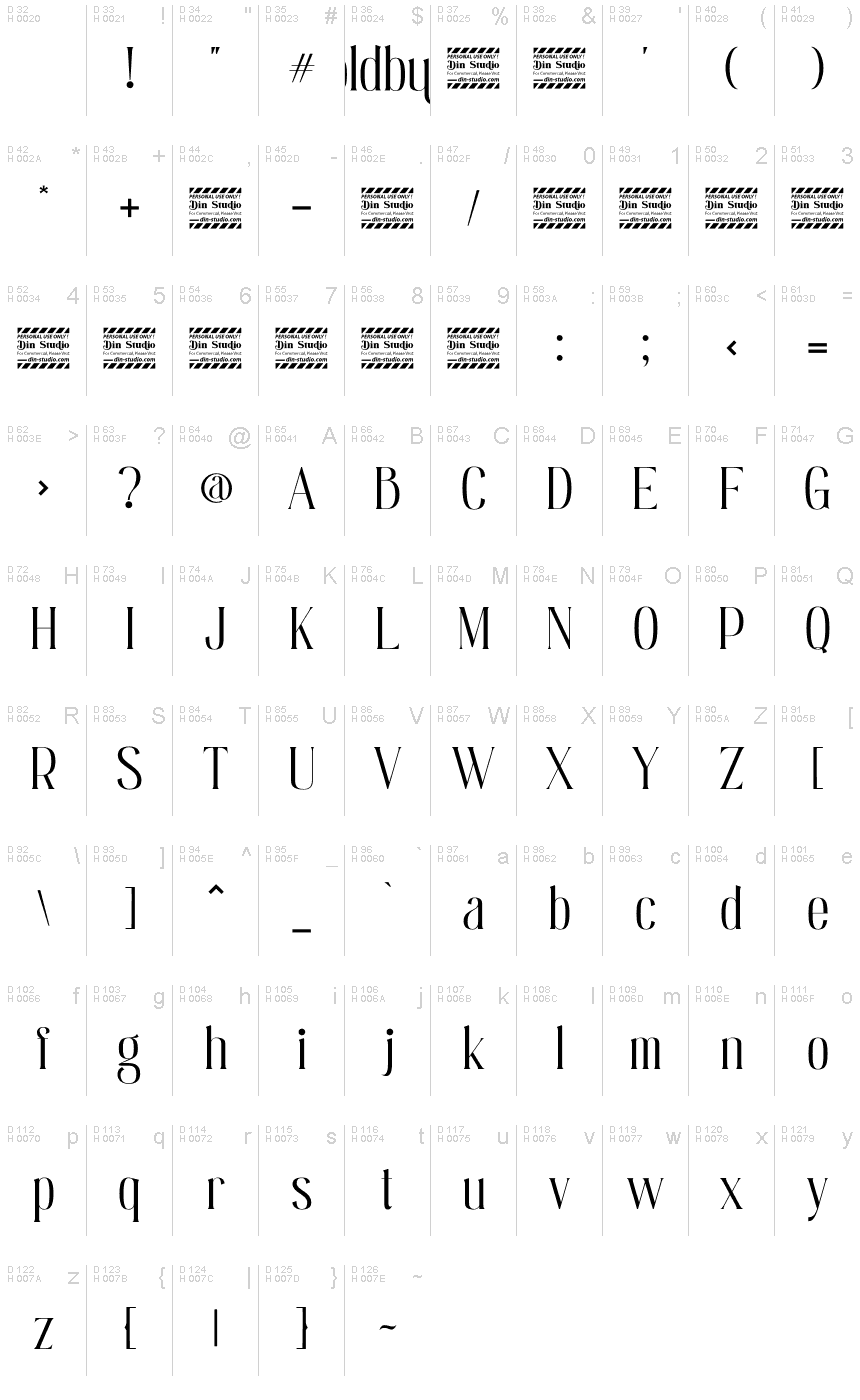
Goldbugs is a modern ligature serif font designed by Donis Miftahudin. Its light weight and narrow width make it ideal for creating contemporary-looking titles and logos - perfect for branding projects, magazines, and social media!
Goldbugs a timeless serif font. Designed with elegance and modern style. Every letter has a unique and beautiful touch, which will make your design come alive. This font is perfect for quotes, shirt designs, websites, branding, childrens designs, svg designs, blogs, logos, invitations and more!